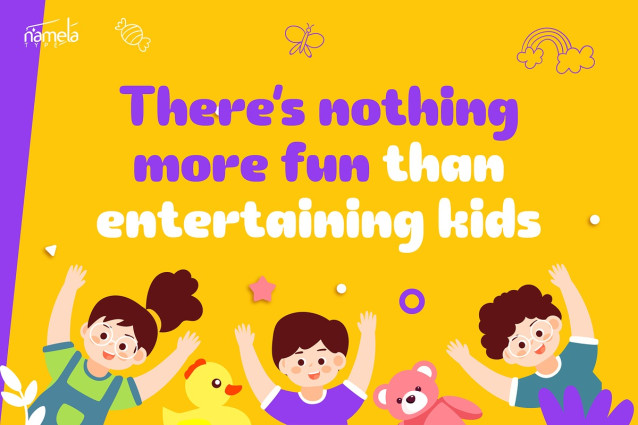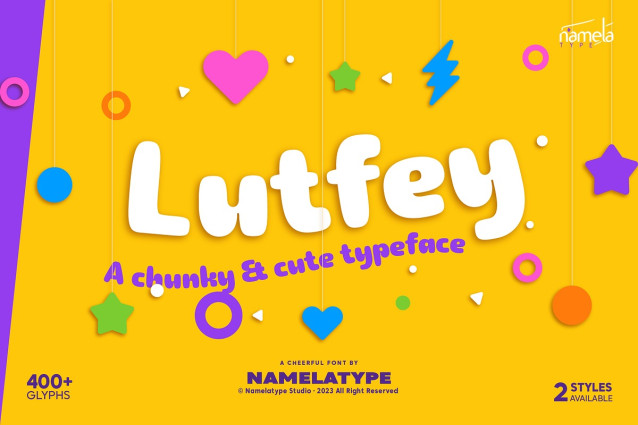
Lutfey Playful Font
Lutfey Playful Font – Fun & Cute Font is a charming and chunky typeface that effortlessly balances boldness with gentleness. Its characters exude a playful yet firm presence, making it ideal for various design projects. The font’s smooth lines, particularly along the outer edges, lend it a visually pleasing and approachable quality. Moreover, subtle ink-trap details at each corner add a touch of refinement, enhancing the overall appeal. Lutfey’s versatility makes it a fantastic choice for a wide range of applications, infusing projects with its delightful and captivating design.